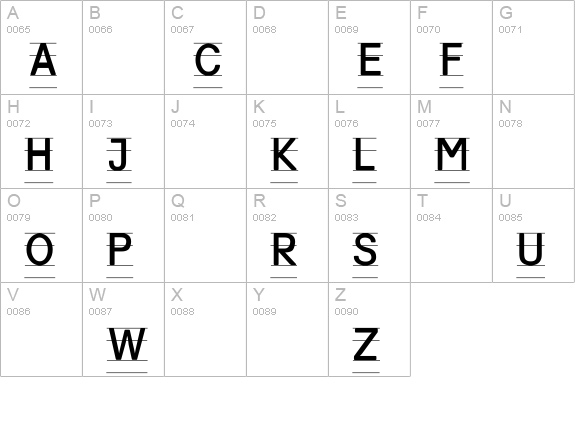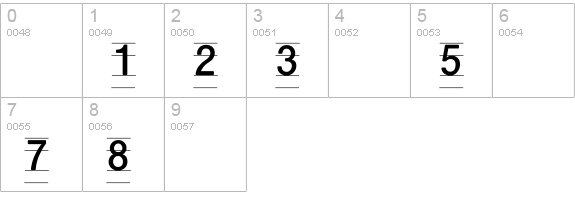
Sueline Font Details
Sueline font is a stunning typeface that exudes elegance and sophistication. Its sleek lines and modern design make it perfect for a wide range of projects, from branding to advertising to editorial design. With its clean and minimalist aesthetic, Sueline font adds a touch of class to any text. The best part? Sueline font is completely free for personal and commercial use. You can download this beautiful font at FontsMarket.com and start using it in your projects today. Whether you're designing a logo, creating a poster, or crafting a website, Sueline font will elevate your work to new heights. Don't miss out on this incredible opportunity to enhance your designs with the timeless beauty of Sueline font.